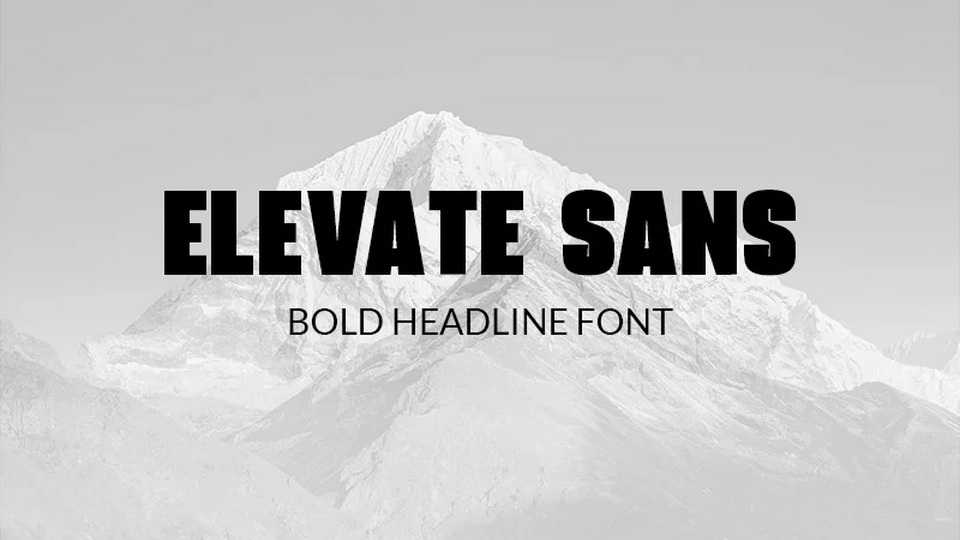
Download Elevate Sans font, a heavy-weight sans serif typeface that’s ideal for headlines, titles, and other text that needs to stand out. The bold letters work well for a variety of projects, including posters, t-shirts, and more.
Designer: Marc Andre